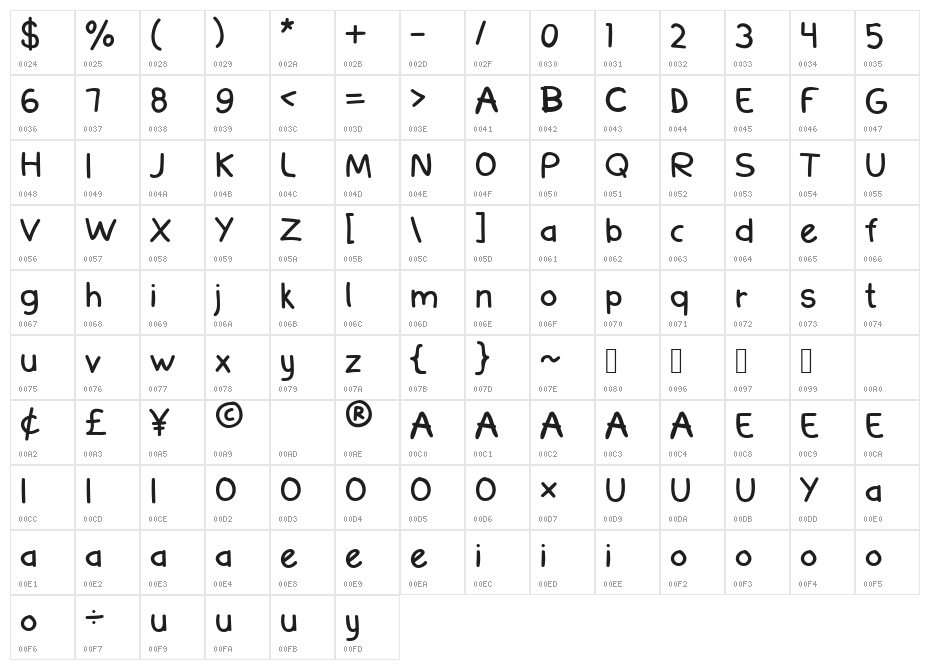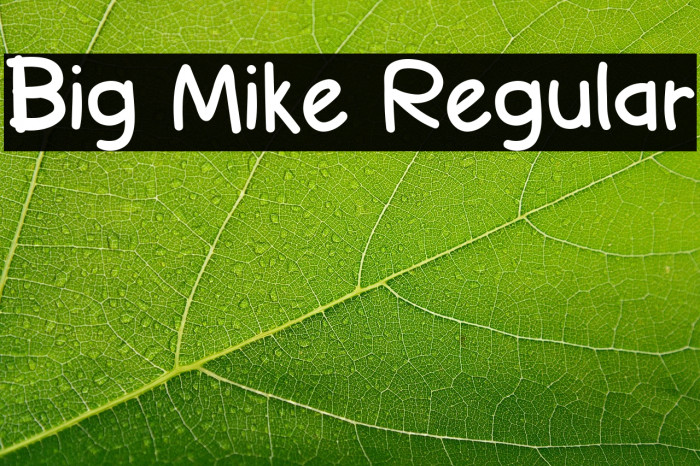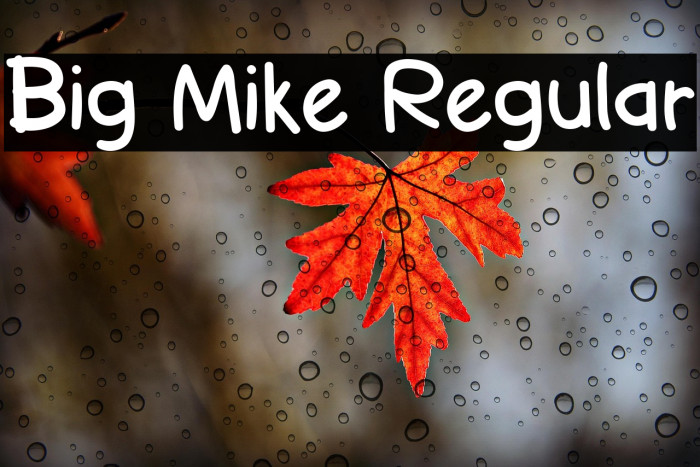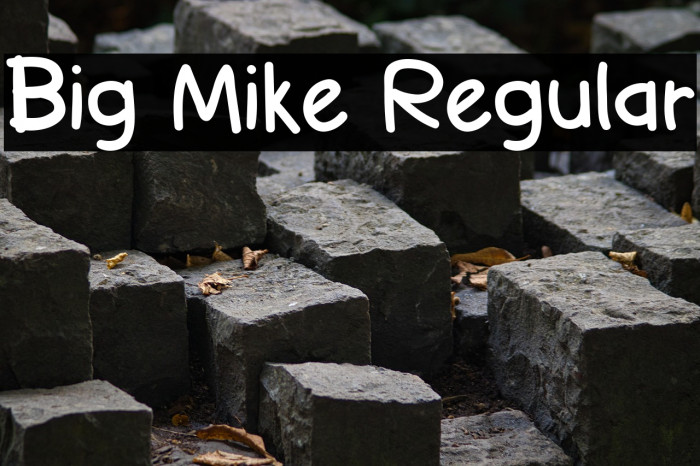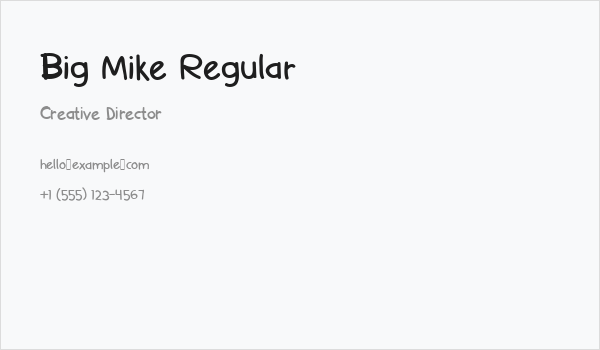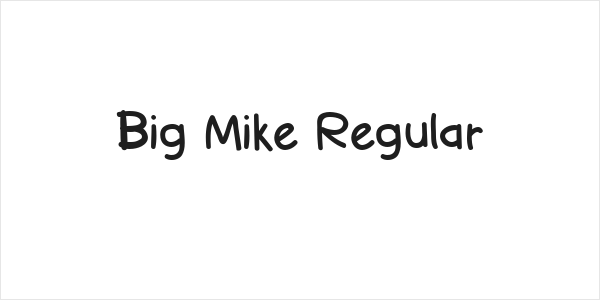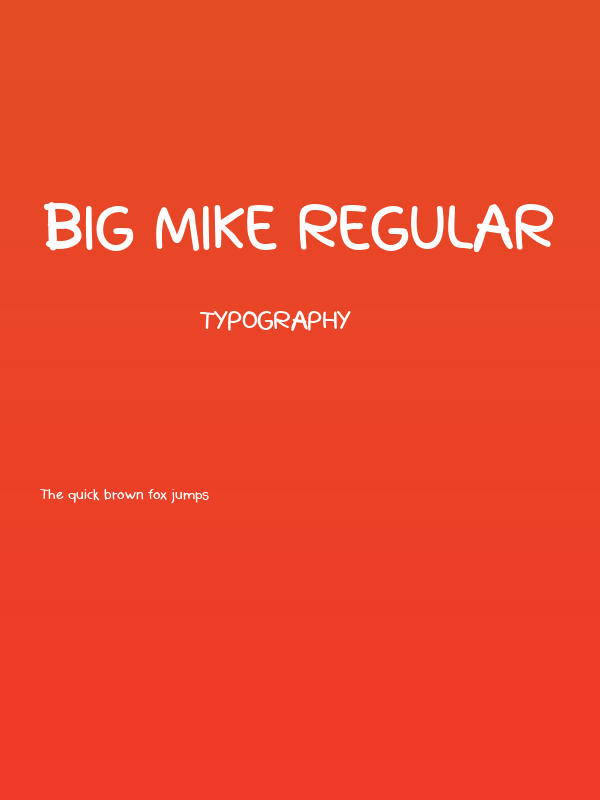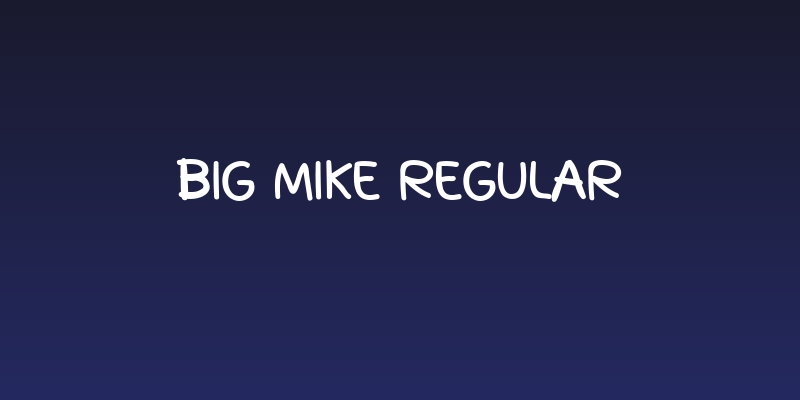
Big Mike Regular Font
Big Mike Regular Description
This font features a playful and informal style, characterized by its rounded and slightly irregular letterforms. The strokes are consistent in thickness, giving it a friendly and approachable appearance. The uppercase and lowercase letters maintain a uniform height, contributing to its casual aesthetic. The numerals and special characters follow the same design principles, ensuring cohesion across all elements. This font is ideal for projects that require a touch of whimsy and creativity, making it suitable for children's books, casual branding, and playful graphic designs.
| Proposed Projects | Children's books, casual branding, playful graphic designs, informal invitations. |